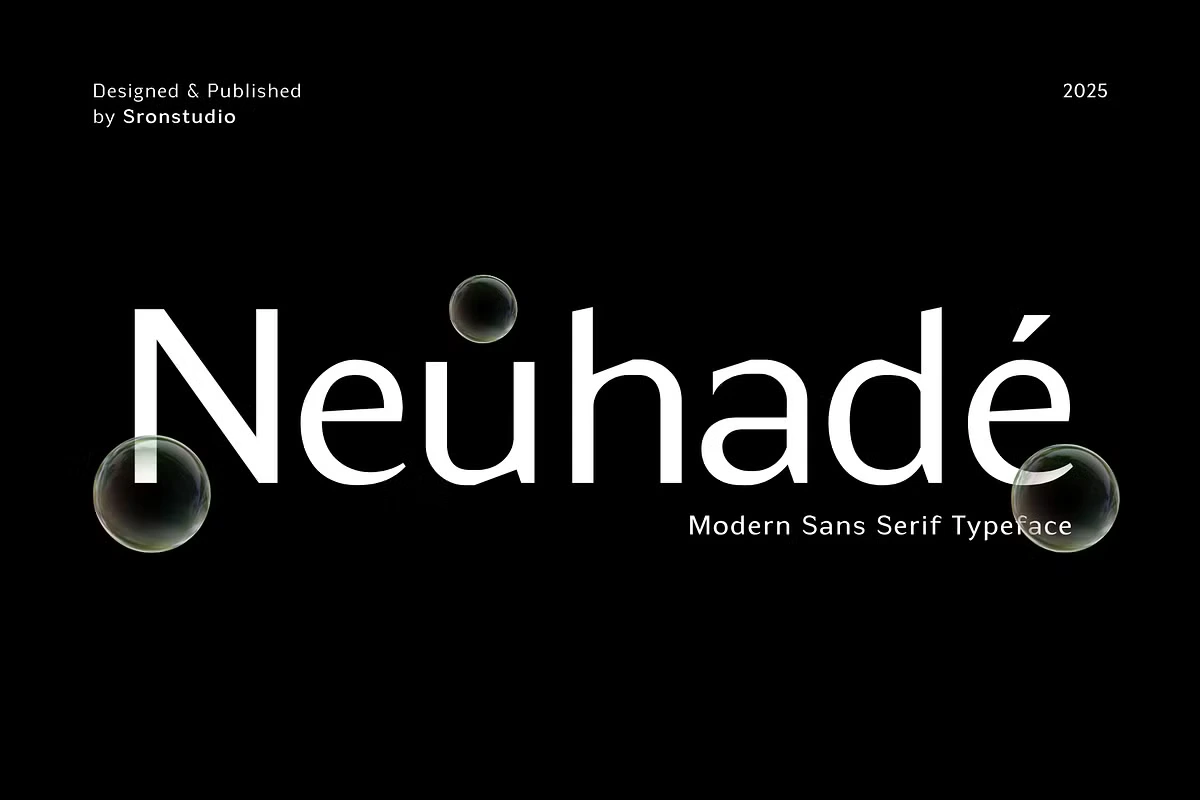
Neuhade Font Family
Neuhade is a variety of a contemporary logo sans serif font aiming to provide the perfect fit to the branding material. Arched terminals, smooth, non Thick strokes, pleasant, combined with precision, geometrically contained curves and letterforms have been added to the design of this font,
such that it perfectly suits logos, headlines, packaging and distinguished and high-end designs. Neuhade looks classy and professional, thus suitable for brands that will like to create an image of the future and class.